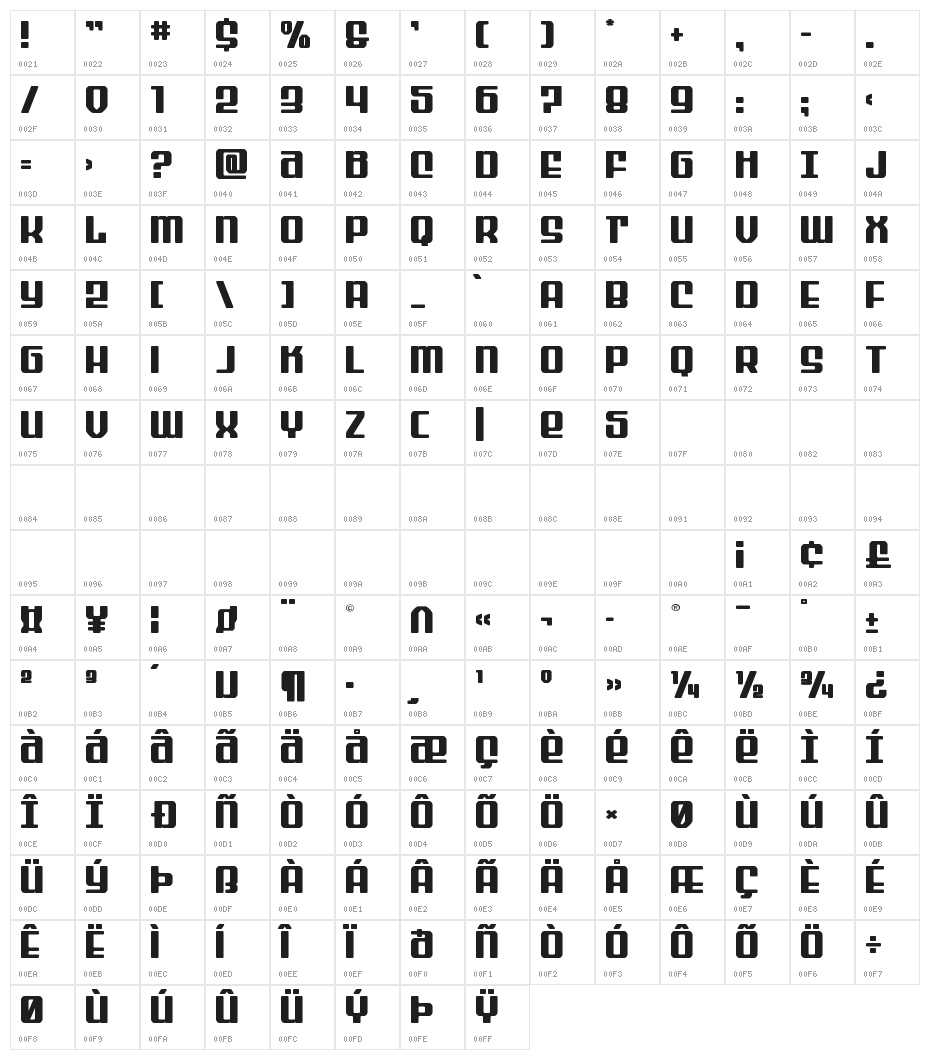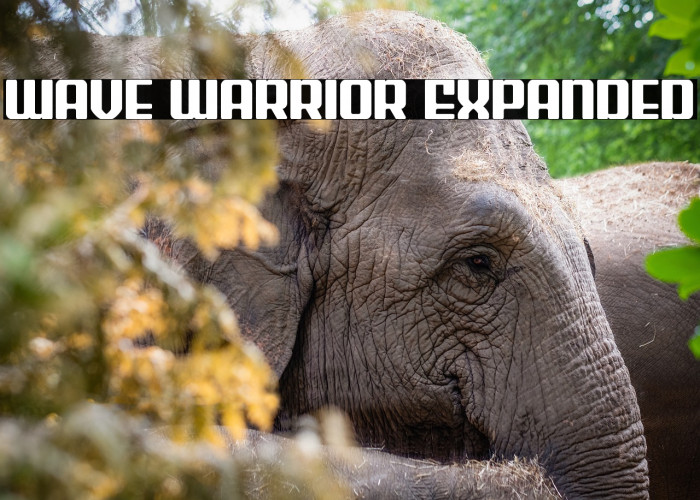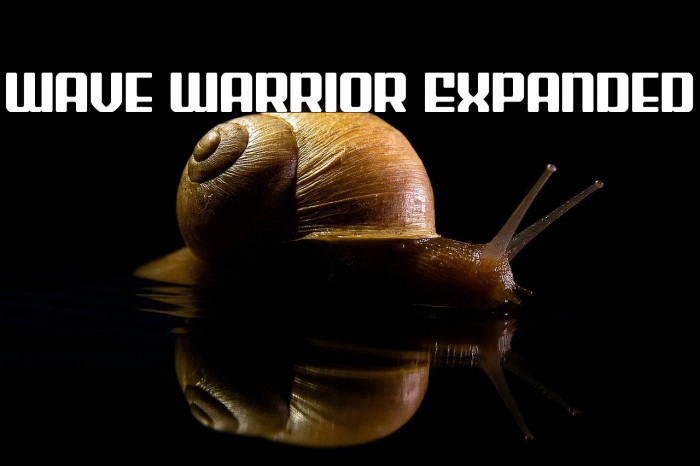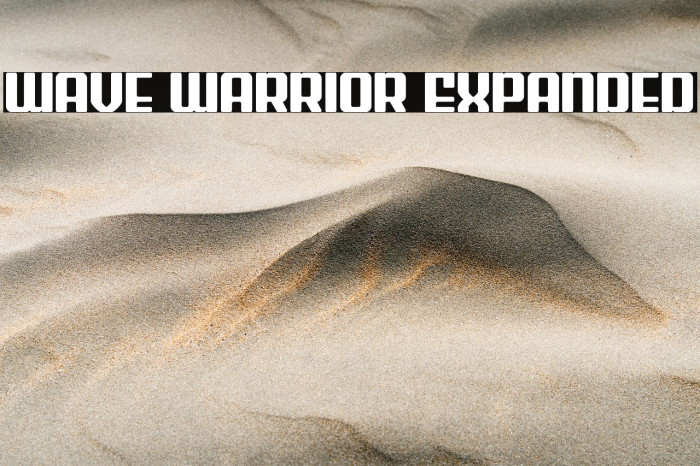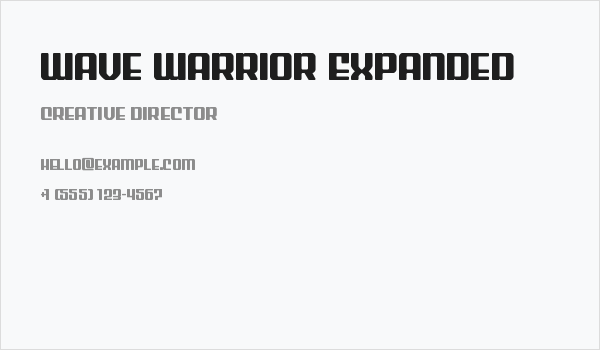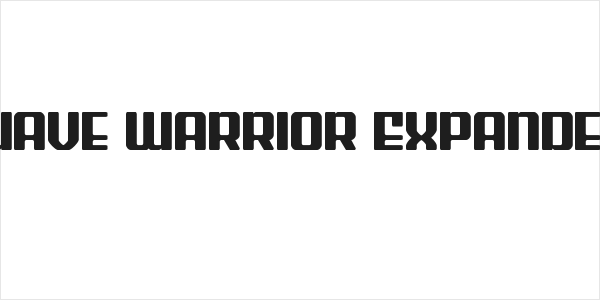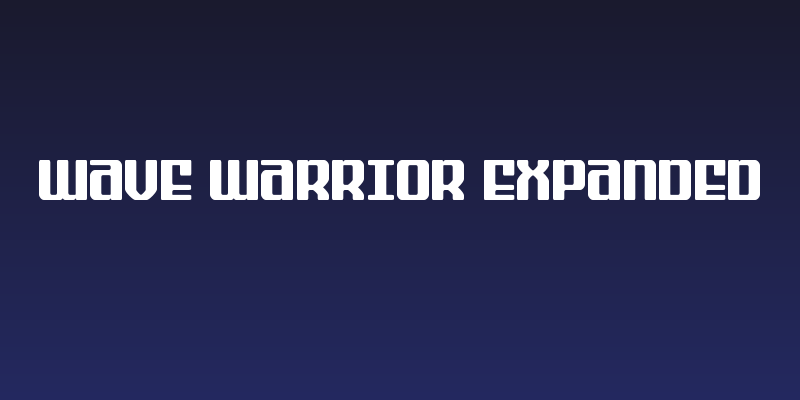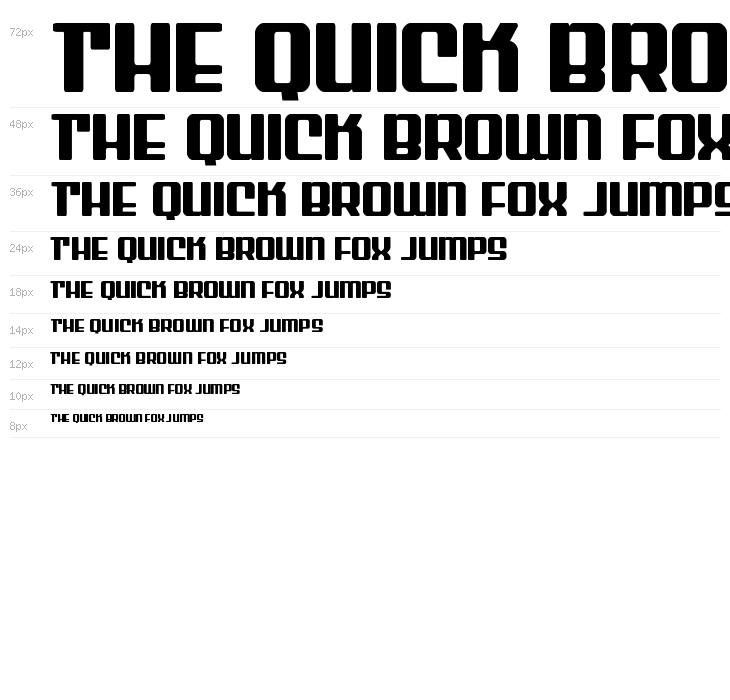
Wave Warrior Expanded Font
Wave Warrior Expanded Description
This font features a bold, geometric design with a strong presence. The characters are uniformly wide, creating a sense of stability and strength. The uppercase and lowercase letters maintain a consistent style, with sharp angles and clean lines. Numbers and special characters are designed to match the boldness of the alphabet, ensuring a cohesive look across all text. The font's expanded width gives it a distinctive appearance, making it suitable for impactful headlines and attention-grabbing designs. Its modern style is complemented by a medium contrast in stroke thickness, adding to its legibility and visual appeal.
| Proposed Projects | This font is perfect for branding projects, posters, and any design that requires a strong, modern typeface. Its boldness makes it suitable for logos, while its clarity ensures readability in headlines. |